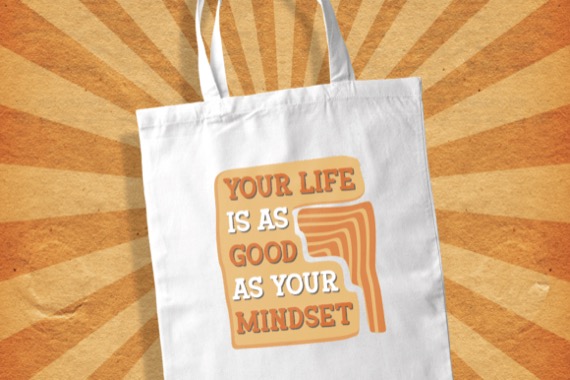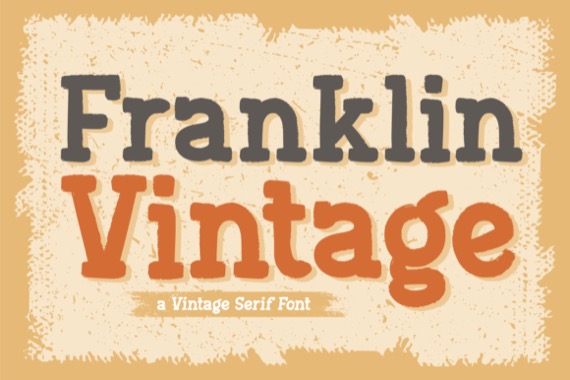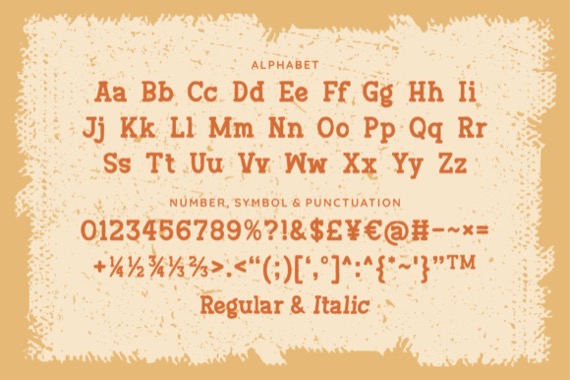
Franklin Vintage Font is an incredibly distinct, delicate and timeless classic serif typeface that was created and shared by Faris (7NTypes). Franklin Vintage feels playfully nostalgic and delivers an incredible vintage aesthetic. Use this serif font to add that special retro touch to any design idea you can think of!
Franklin Vintage Display Serif Font